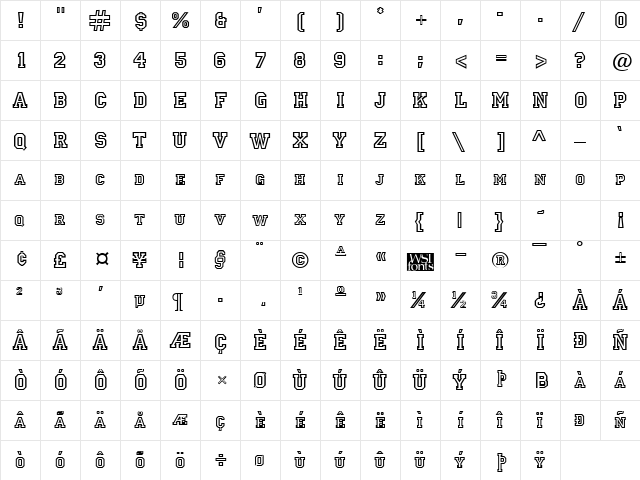
Letterman Regular
Design Context for Letterman Typeface
Letterman is a composed and adaptable typeface that performs quietly and consistently across a wide range of design contexts.
Pro Tip: Pair Letterman with a font of contrasting weight or personality to build a more expressive typographic hierarchy.